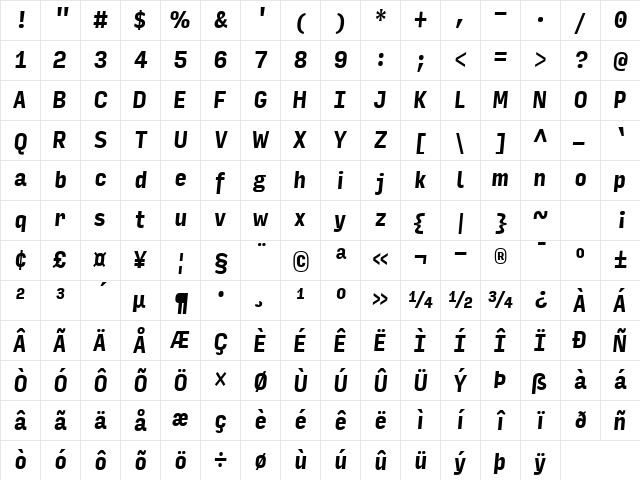
Complete Input Sans Compressed Bold Italic glyph index. Displaying only characters natively supported by Input Sans Compressed Bold Italic font.
Input Sans Compressed is a composed and adaptable typeface that performs quietly and consistently across a wide range of design contexts. The slanted form adds forward momentum and visual energy. Its bold stroke weight gives it real presence on the page.